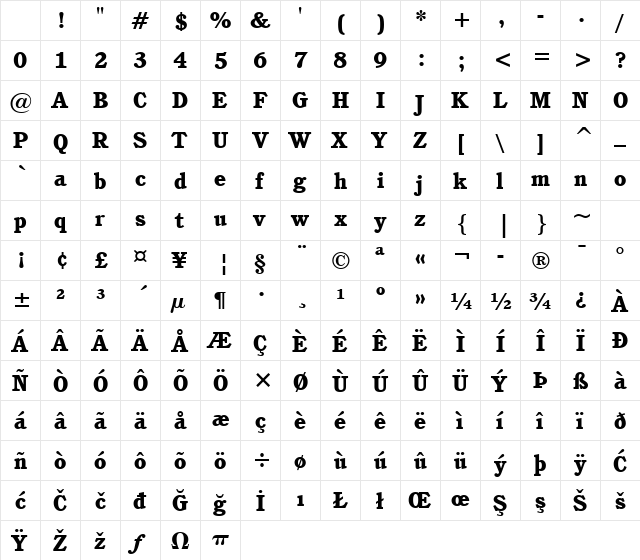
Complete Cushing Hv BT Heavy glyph index. Displaying only characters natively supported by Cushing Hv BT Heavy font.
Cushing Hv BT is a composed and adaptable typeface that performs quietly and consistently across a wide range of design contexts.